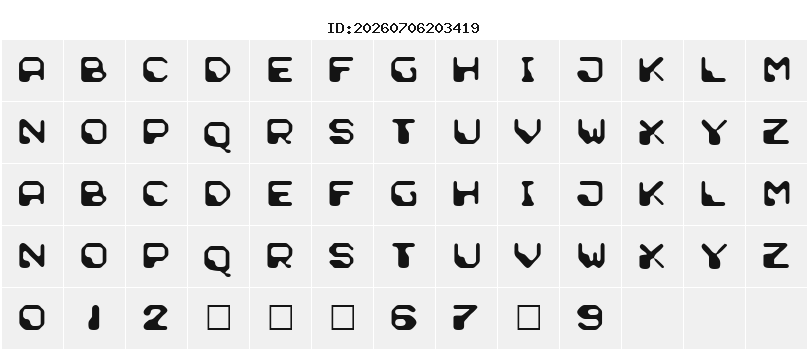
• Font Name: Demun Lotion
Demun Lotion.ttf is a modern, elegant sans-serif font designed for ultimate readability and visual harmony. Perfect for branding, headlines, web design, and print materials.